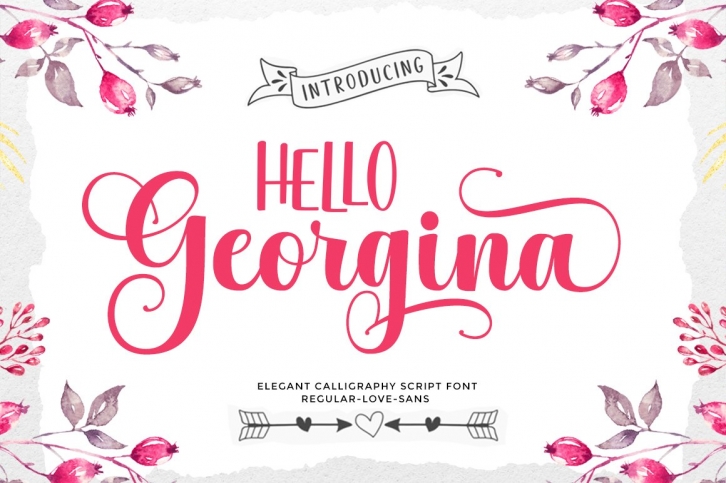
Hello Georgina Script FONT Download
Hello Georgina Script is a gorgeous font that was realeased on January 10, 2022. The font can be used in many style contexts and design environments. Perfect for invitations, magazines, websites, logos, and more! It was designed by Erick Studio and the file size is 17.59 MB. Thanks for checking out this font!